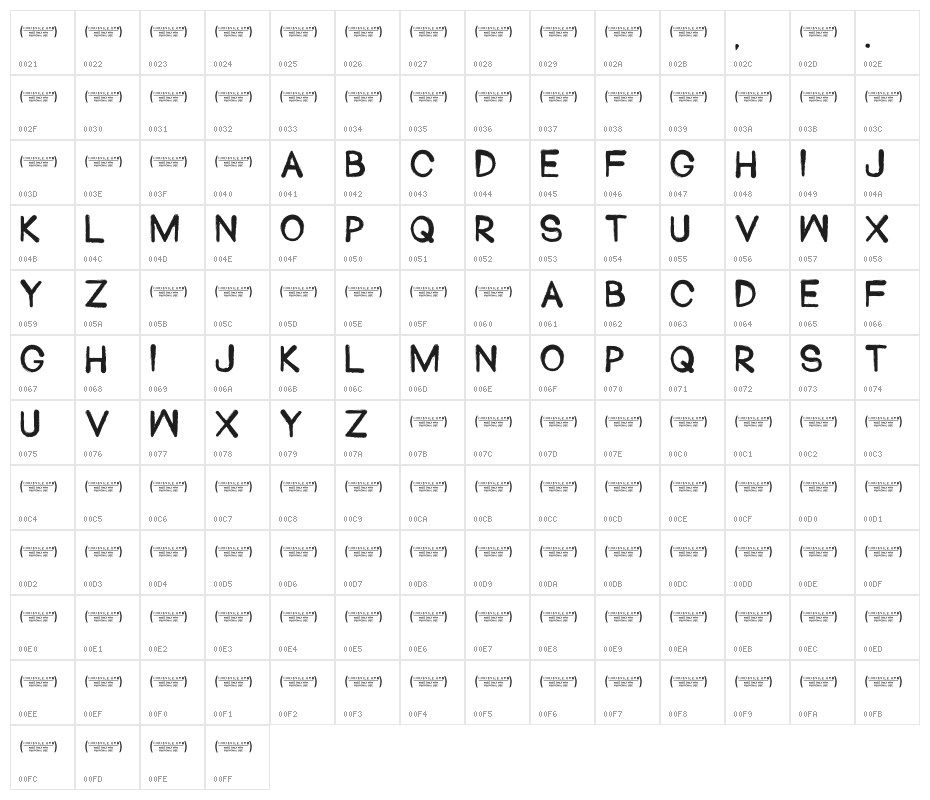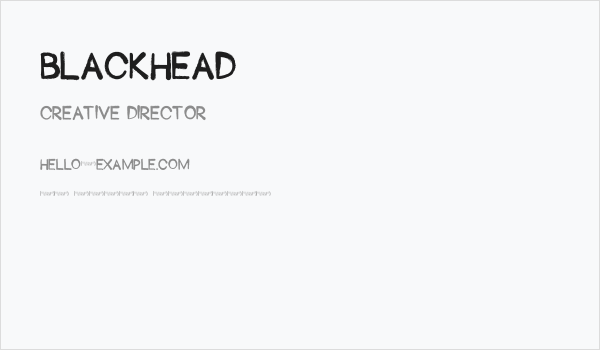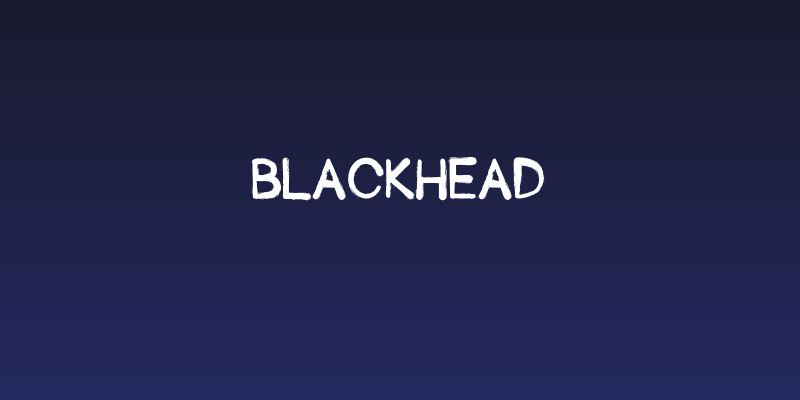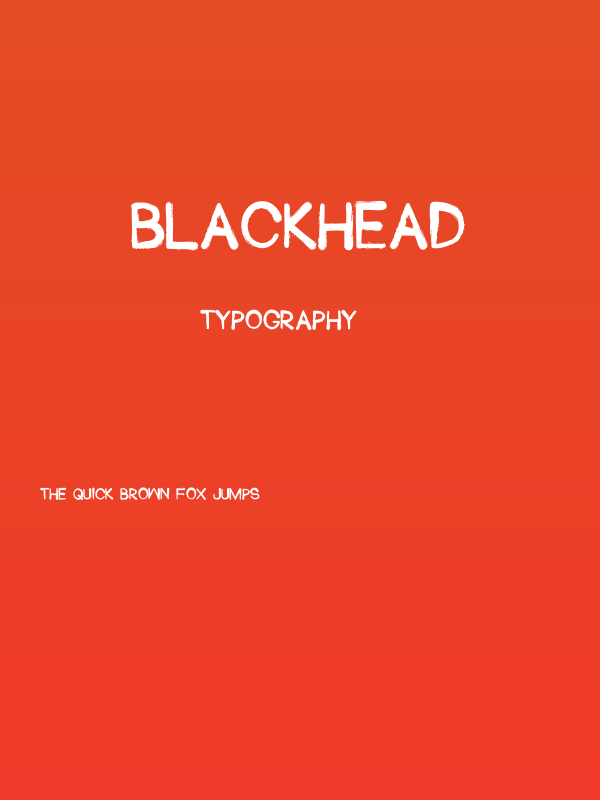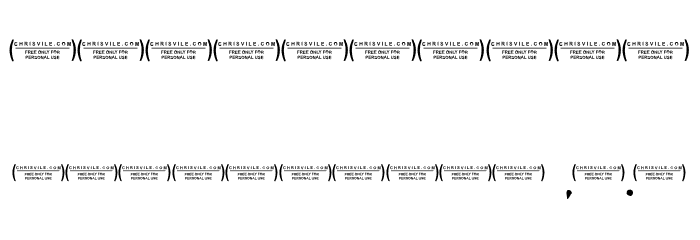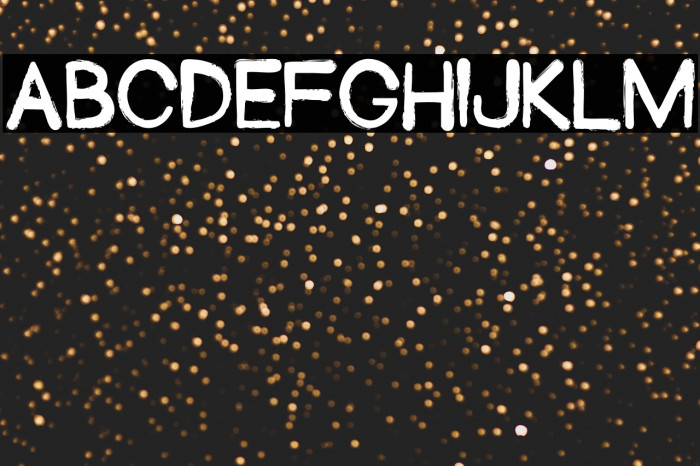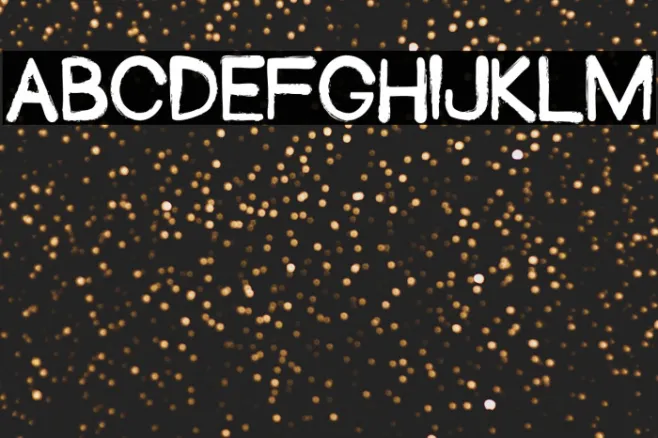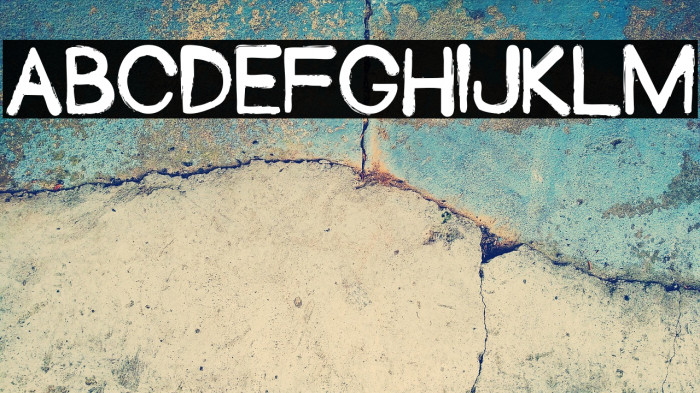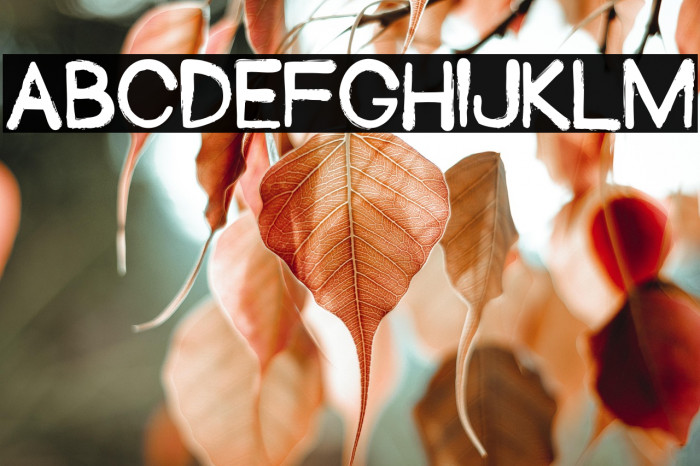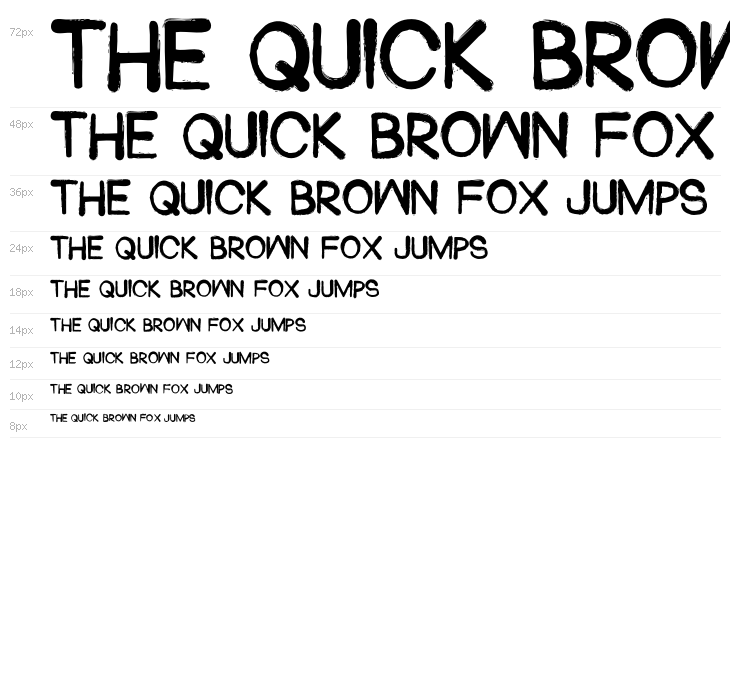
Blackhead Font
Blackhead Description
This font features a bold, hand-drawn style with a rough, textured appearance. The letters are uppercase and have a slightly uneven, organic feel, giving them a casual and artistic look. The strokes are thick and consistent, with a slight variation in width that adds to the hand-crafted aesthetic. The characters are well-spaced, ensuring readability while maintaining a unique, expressive style. This font is ideal for projects that require a personal touch or an informal vibe, such as posters, invitations, or creative branding materials.
| Proposed Projects | Ideal for posters, invitations, creative branding, and artistic projects. |